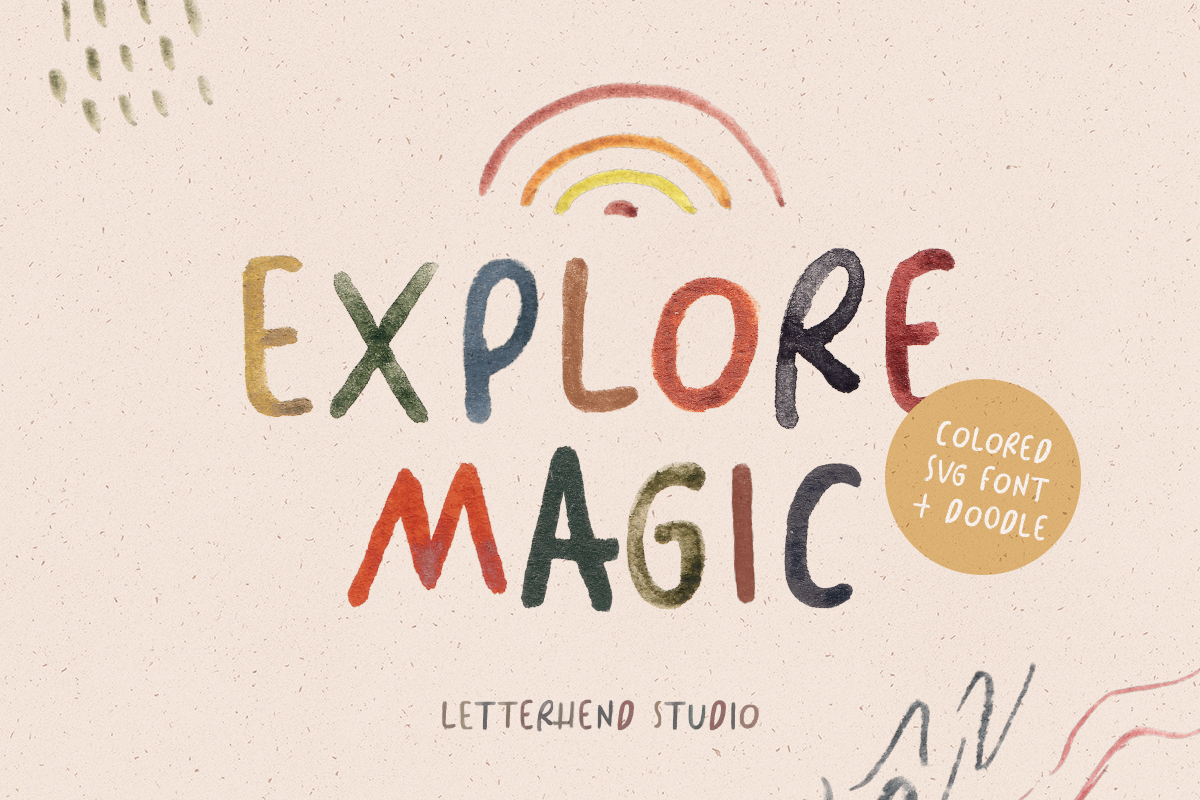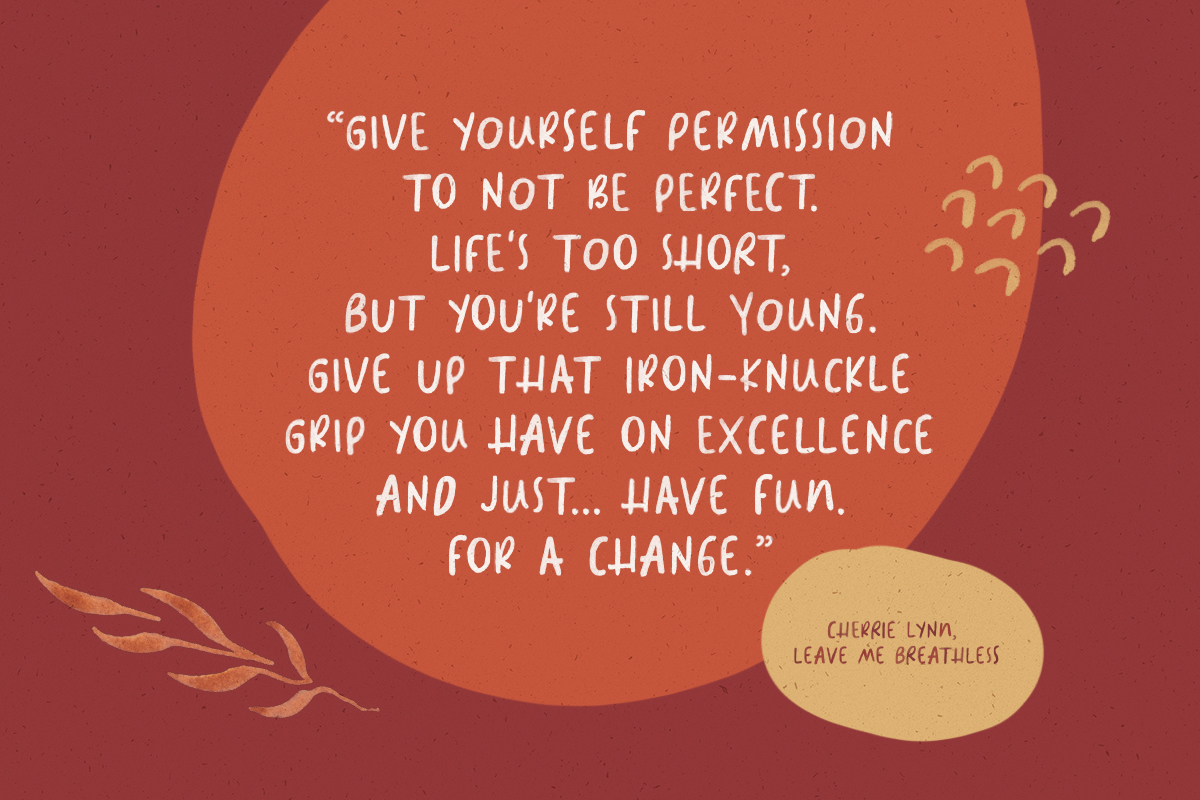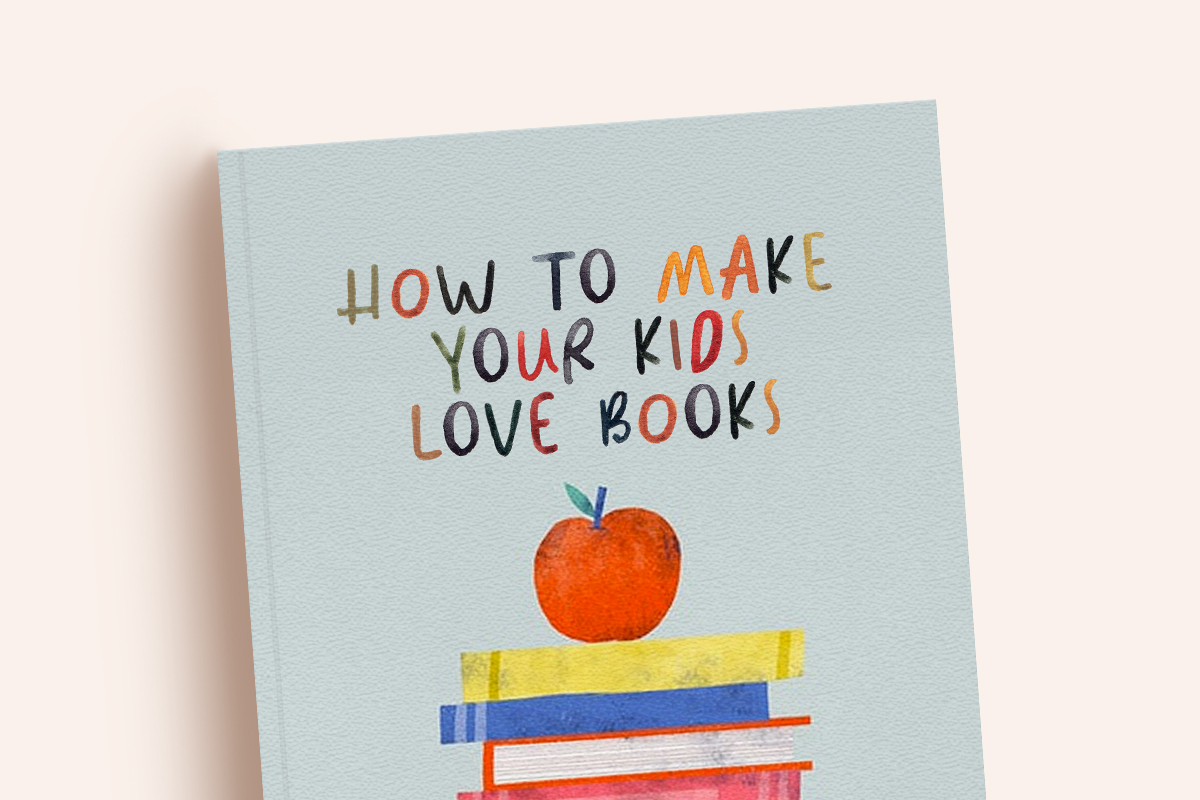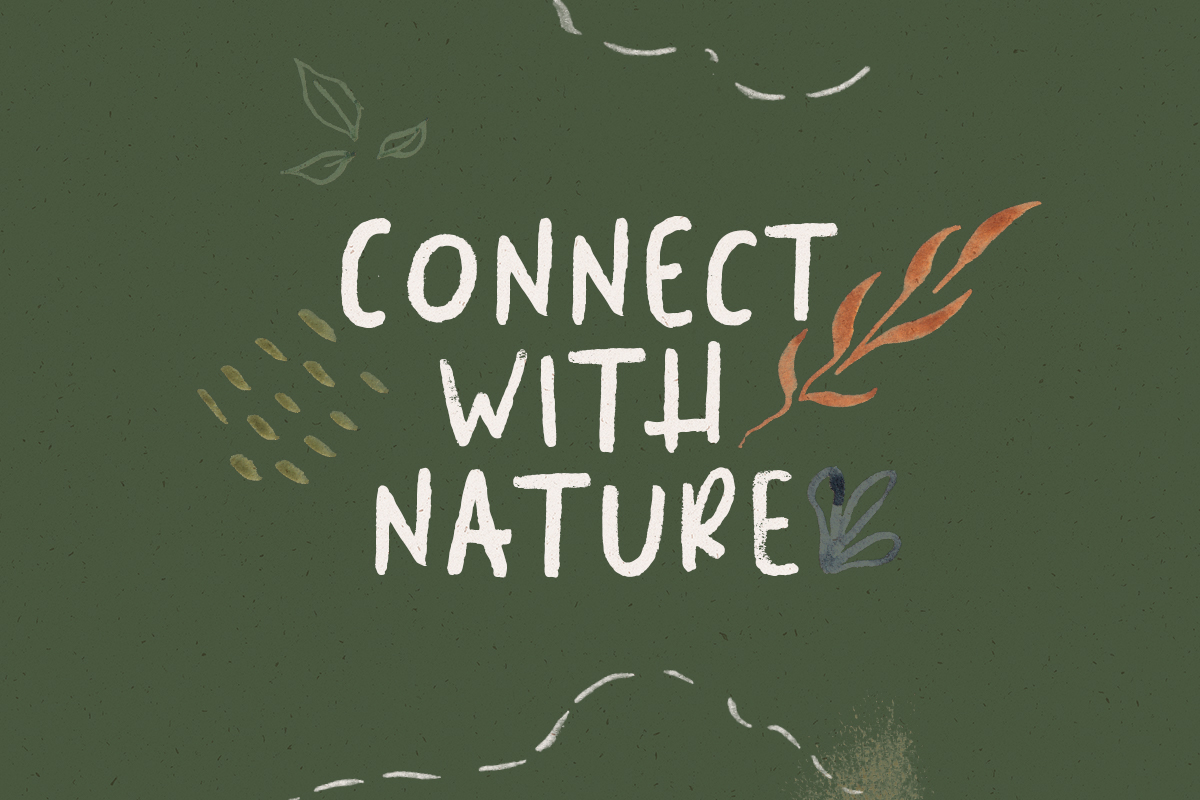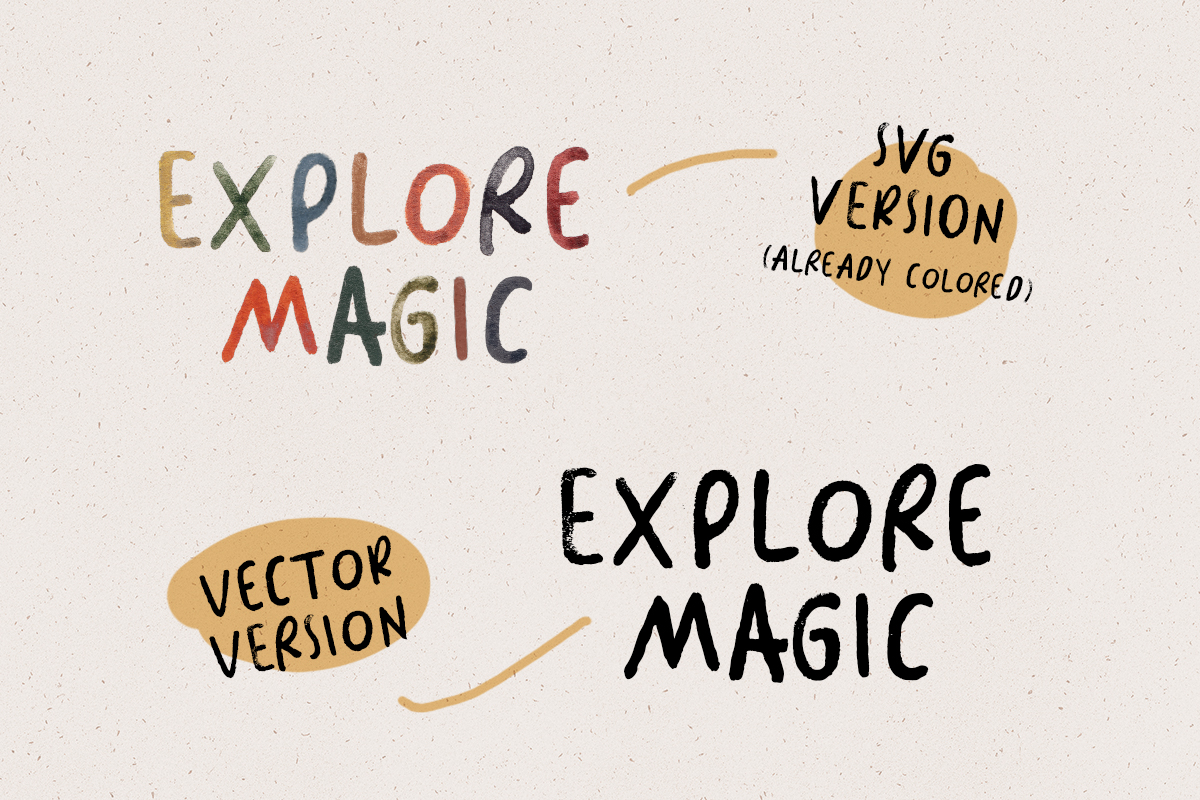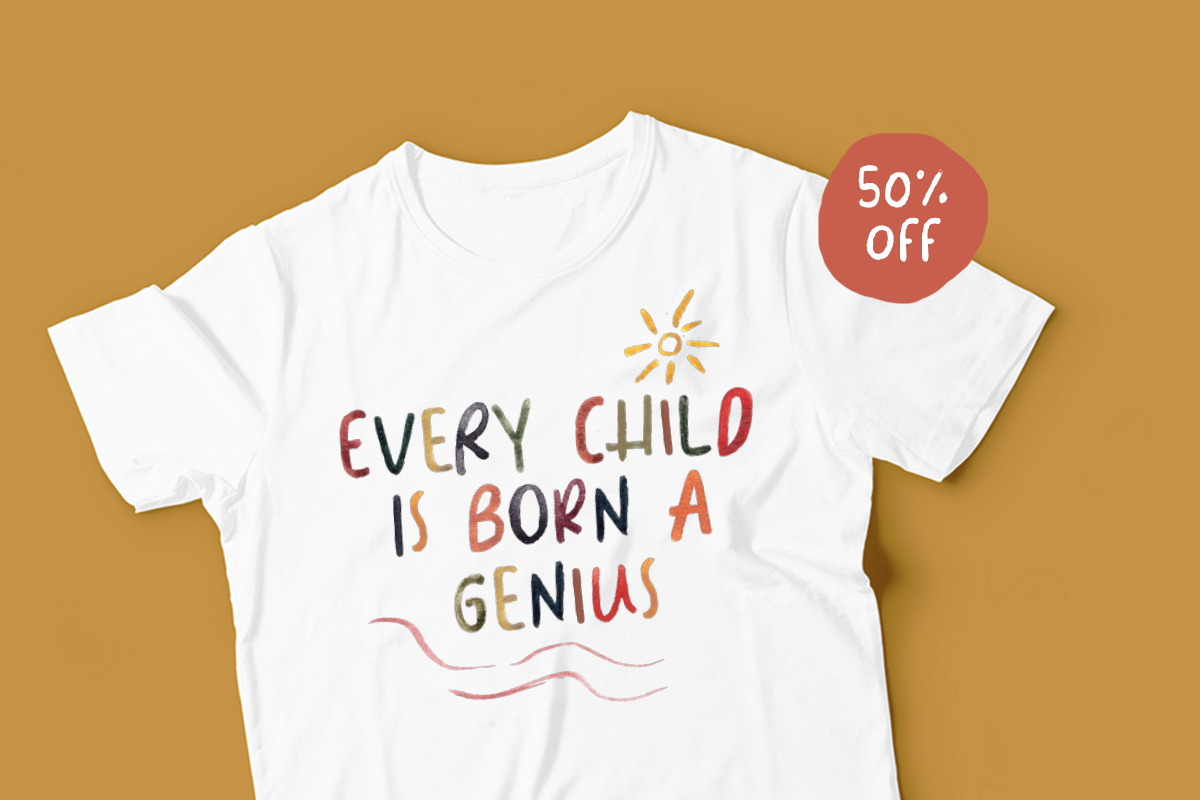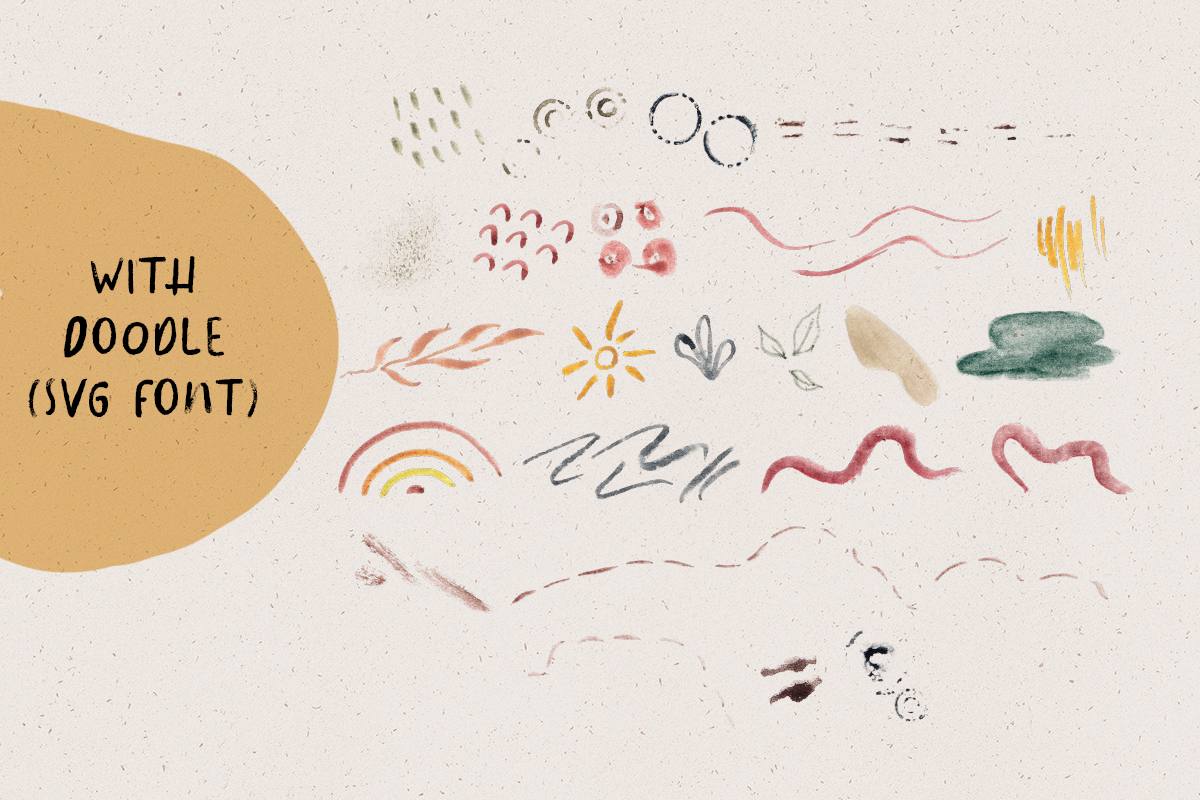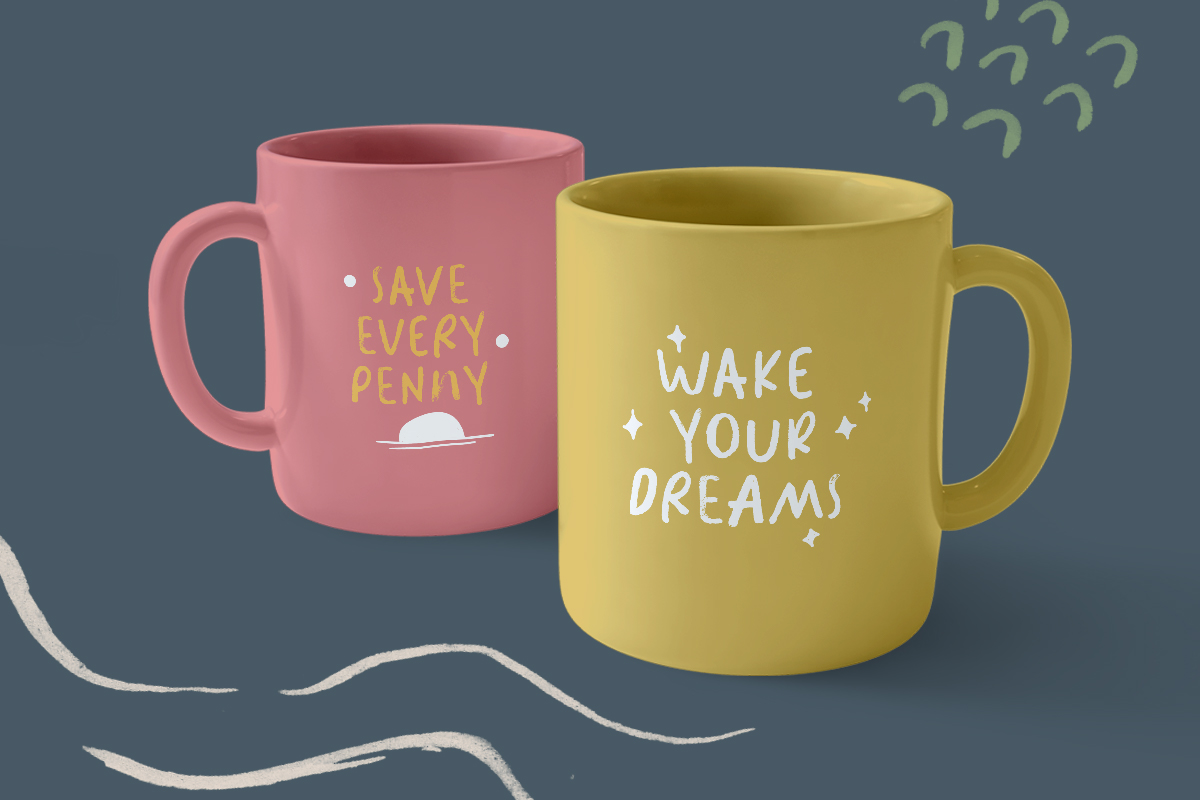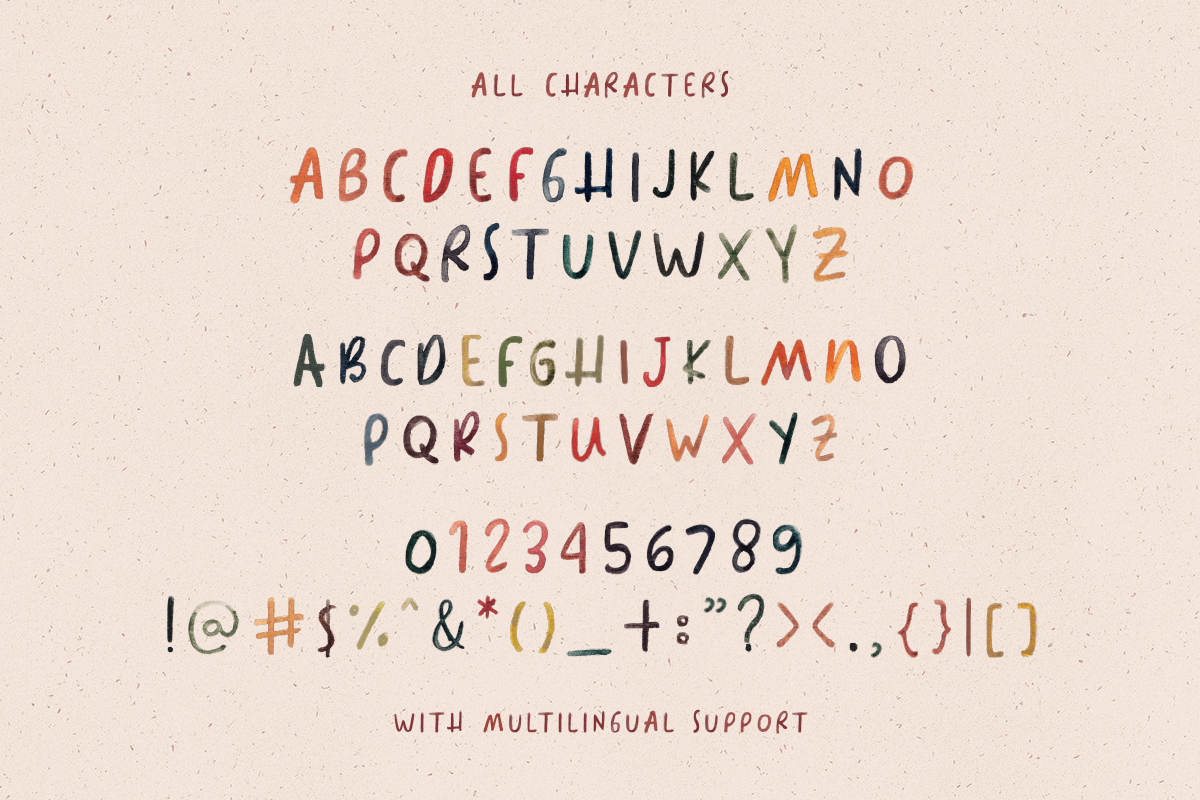
Explore Magic is a colored SVG typeface with fun and playful looks. Available in two types, solid version and transparent version with doodle dingbats as extra! This type of font perfectly made to be applied especially in storybook children or child theme which is need a standout font, and the other various formal forms such as invitations, labels, logos, magazines, books, greeting / wedding cards, packaging, fashion, make up, stationery, novels, labels or any type of advertising purpose.